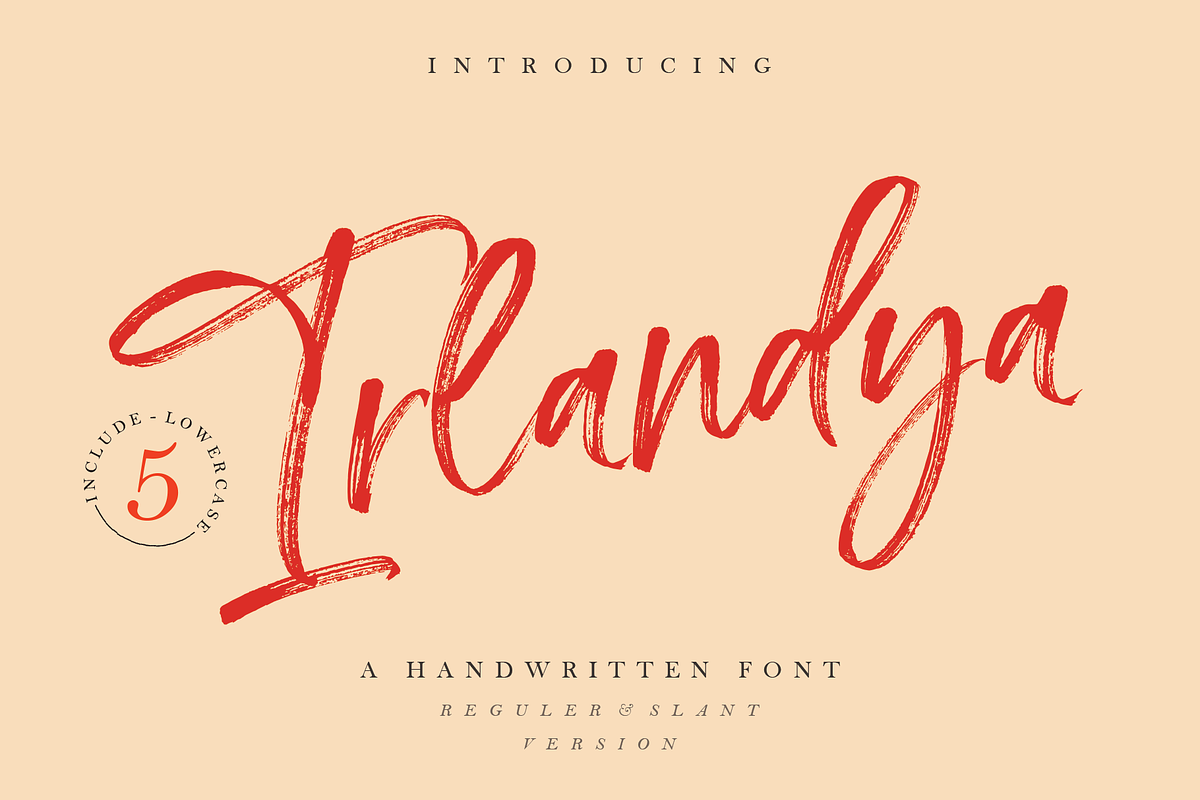
Irlandya - Handwritten Font Free Download is a charming and expressive typeface that adds a personal, handwritten touch to your designs. With its organic, flowing letterforms, this font is perfect for creating warm, inviting projects such as greeting cards, personal branding, invitations, and more. Its natural feel and playful curves make it ideal for designs that need a casual, authentic touch. Whether you're designing for a boutique, crafting a unique logo, or creating heartfelt content, Irlandya - Handwritten Font Free Download lets you explore its artistic style in personal projects before purchasing a commercial license. Add warmth and personality to your designs with this beautifully crafted handwritten font.